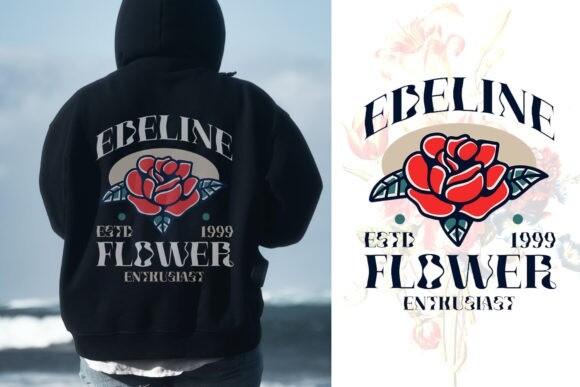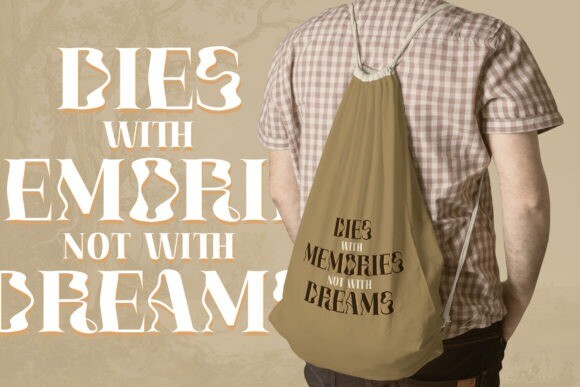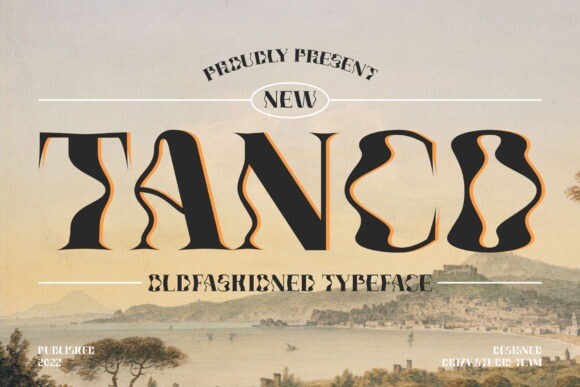
Tanco – Old-fashioned Typeface
Tanco is an old-fashioned serif font. It is perfect for product packaging, branding project, magazine covers, social media, wedding, or just used to express words above the background.